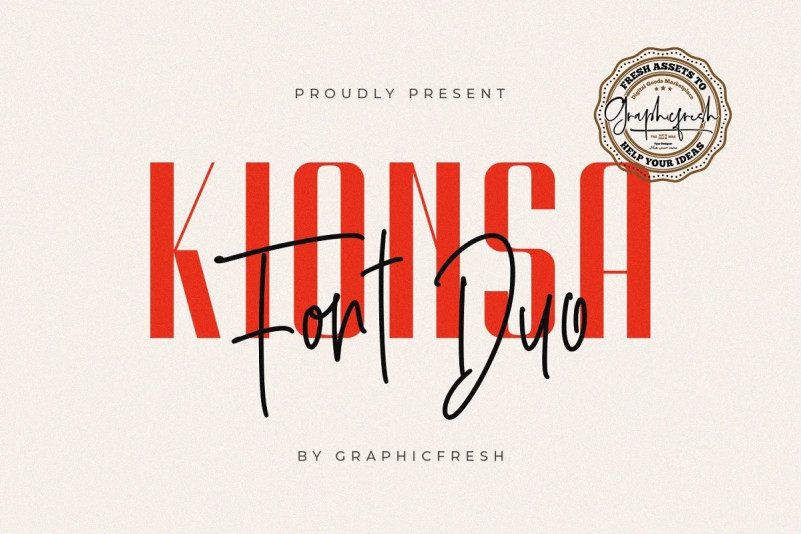
Kionsa Sans Serif Font
Introducing Kionsa – Ultra Condensed Font Duo. It comes with an elegant and retro style which is perfect to make any design stand out! This font is perfect for branding, wedding invites, magazines, mugs, business cards, quotes, posters, and more.